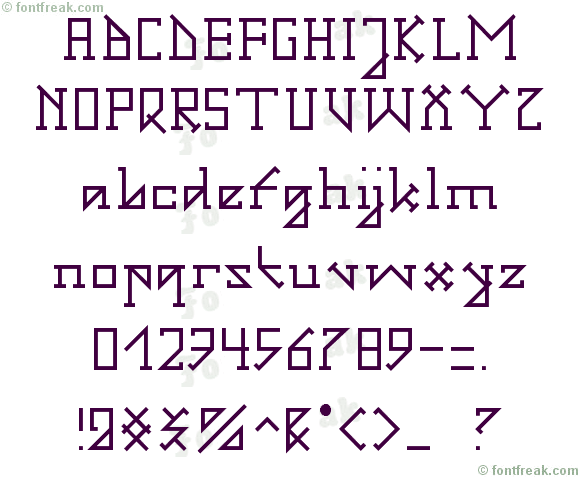
The Gotika font by Extate is a striking serif typeface that blends modern elegance with a touch of classic charm. Released in 2006, this freeware font showcases a unique visual style characterized by its bold stroke weight and balanced contrast. The letters feature a distinct geometric form, enhanced by clean lines and carefully crafted serifs, which contribute to its overall legibility and aesthetic appeal. The spacing between characters is thoughtfully designed, allowing for a harmonious flow that makes Gotika suitable for a variety of applications.
This versatile font is ideal for use cases such as wedding invitations, where its refined look can add a touch of sophistication. It also shines in movie posters, providing a strong visual statement that captures attention. Additionally, Gotika works well for restaurant menus, drawing patrons in with its stylish presentation. Graphic designers and content creators will find this font particularly useful for branding projects, as its unique characteristics can help convey a memorable identity.
Targeting graphic designers, small business owners, and anyone looking to enhance their visual communication, the Gotika font serves as an excellent choice for those who appreciate a blend of contemporary and traditional design elements. Its copyleft license encourages creativity and sharing, making it accessible to a broad audience.
What truly sets the Gotika font apart is its ability to convey both elegance and approachability, making it suitable for a diverse range of projects. Whether you are designing for a formal event or a casual gathering, the Gotika font free download offers a creative solution that elevates any design. Embrace the unique qualities of Gotika and watch your projects come to life with this standout typeface.